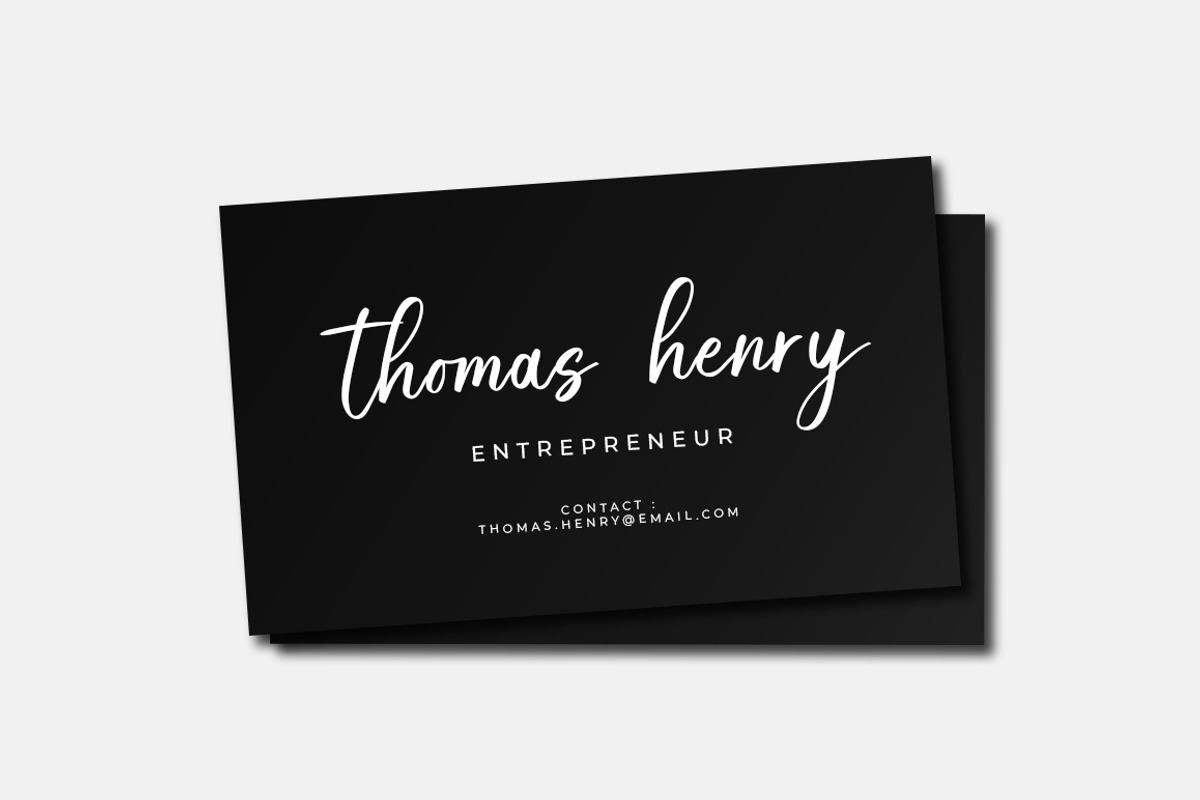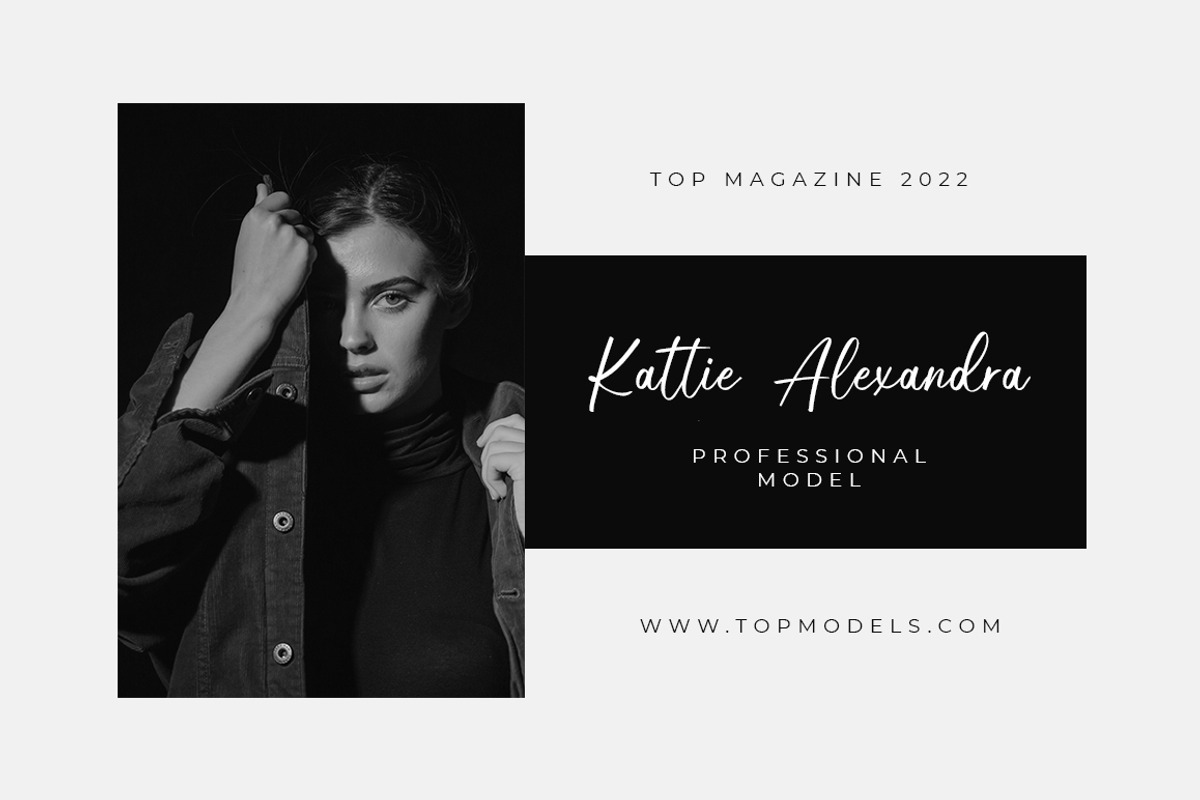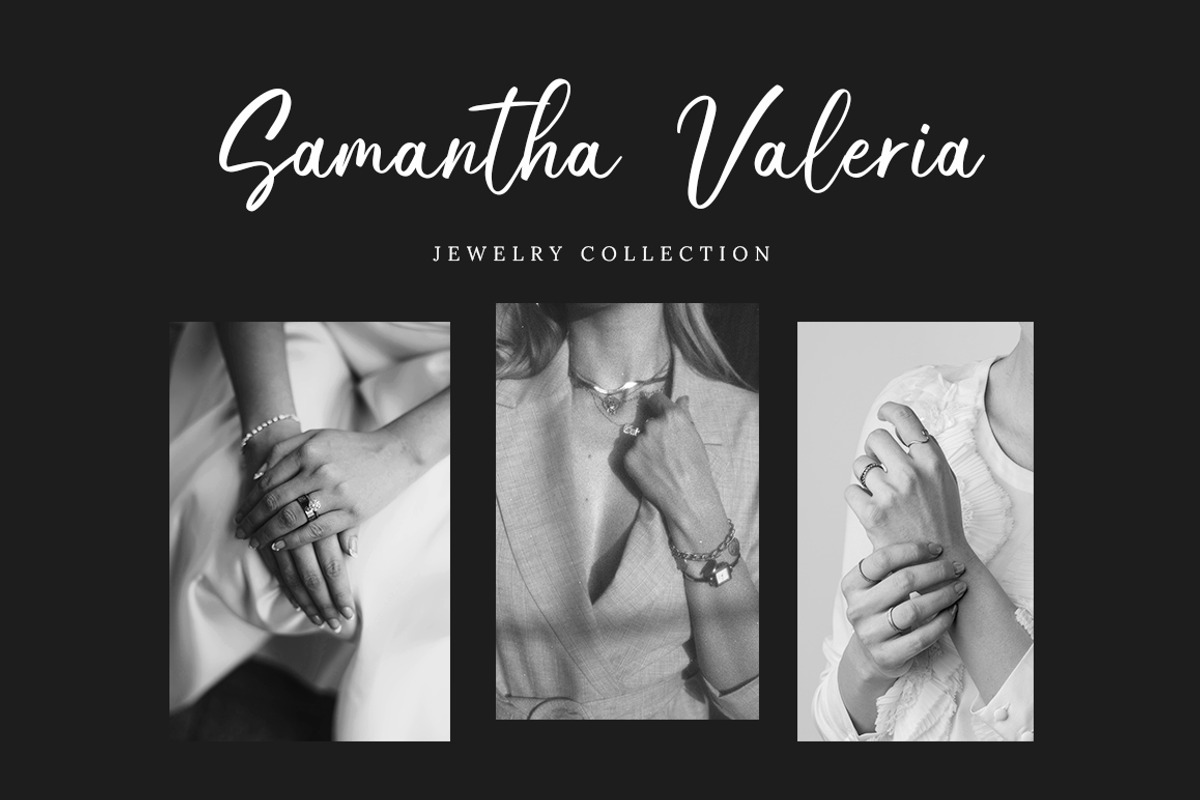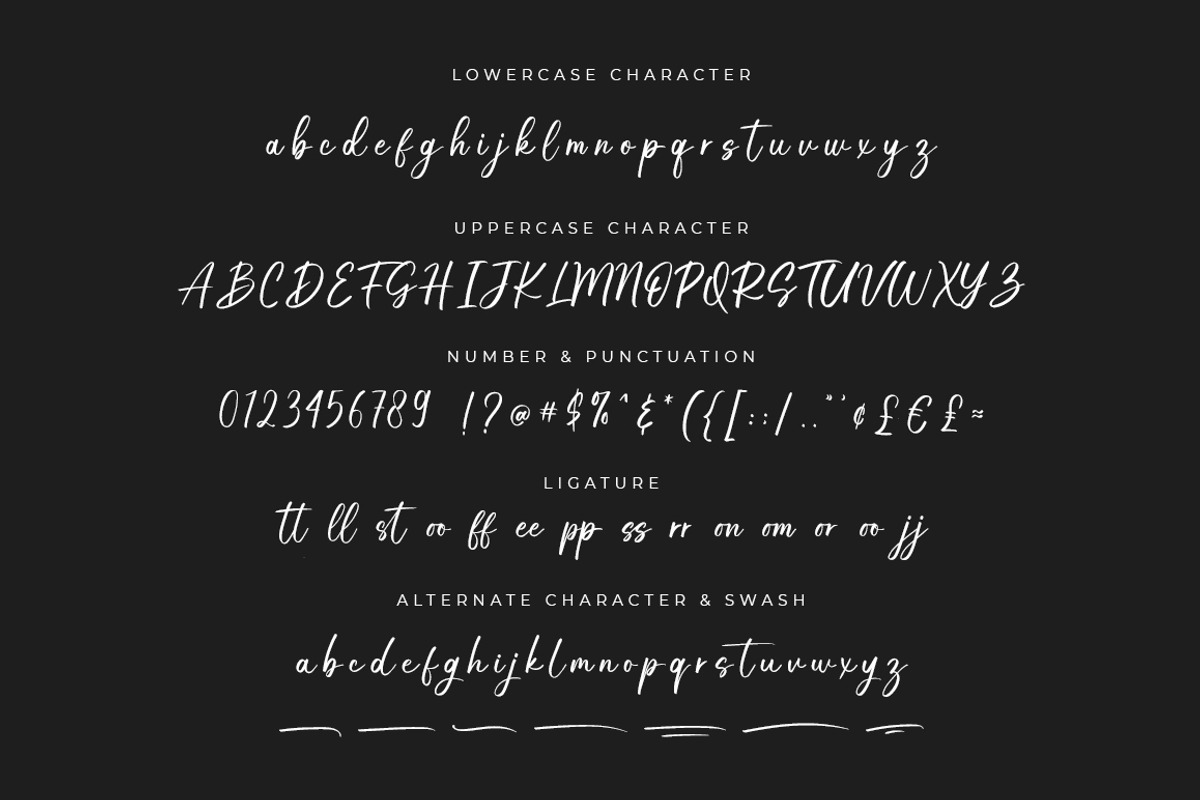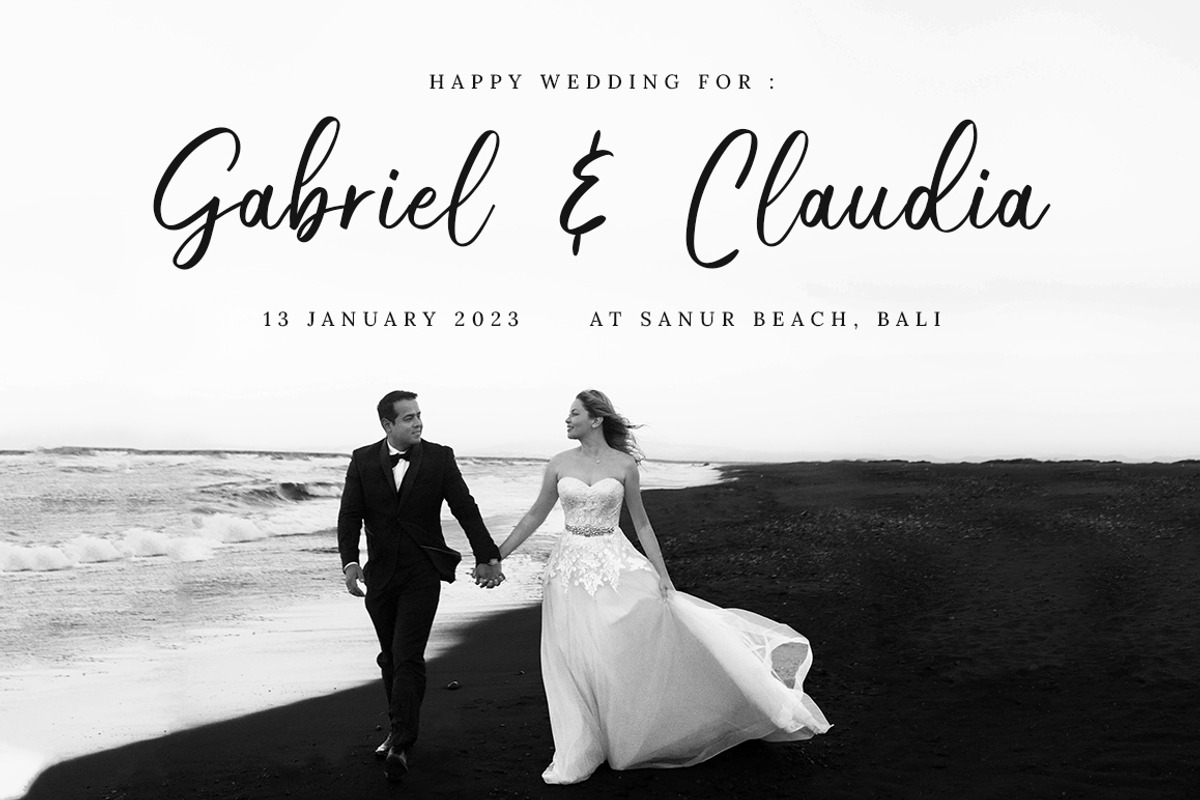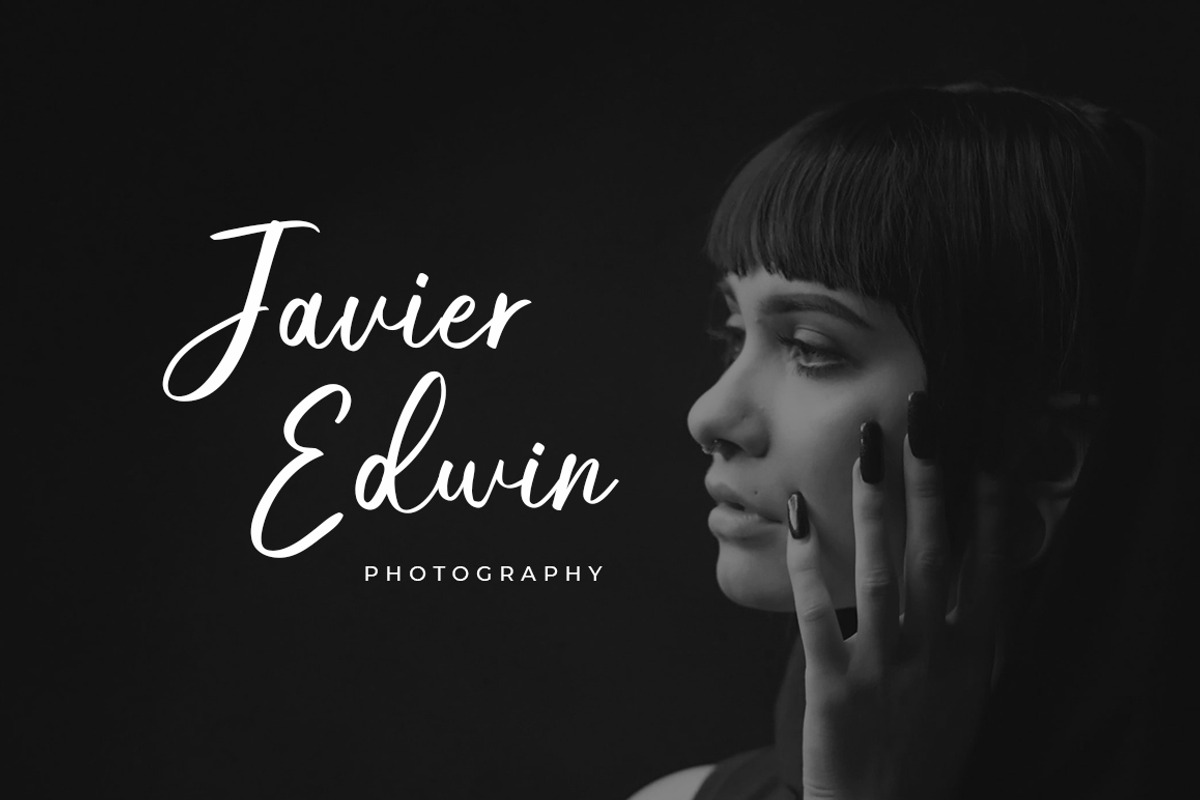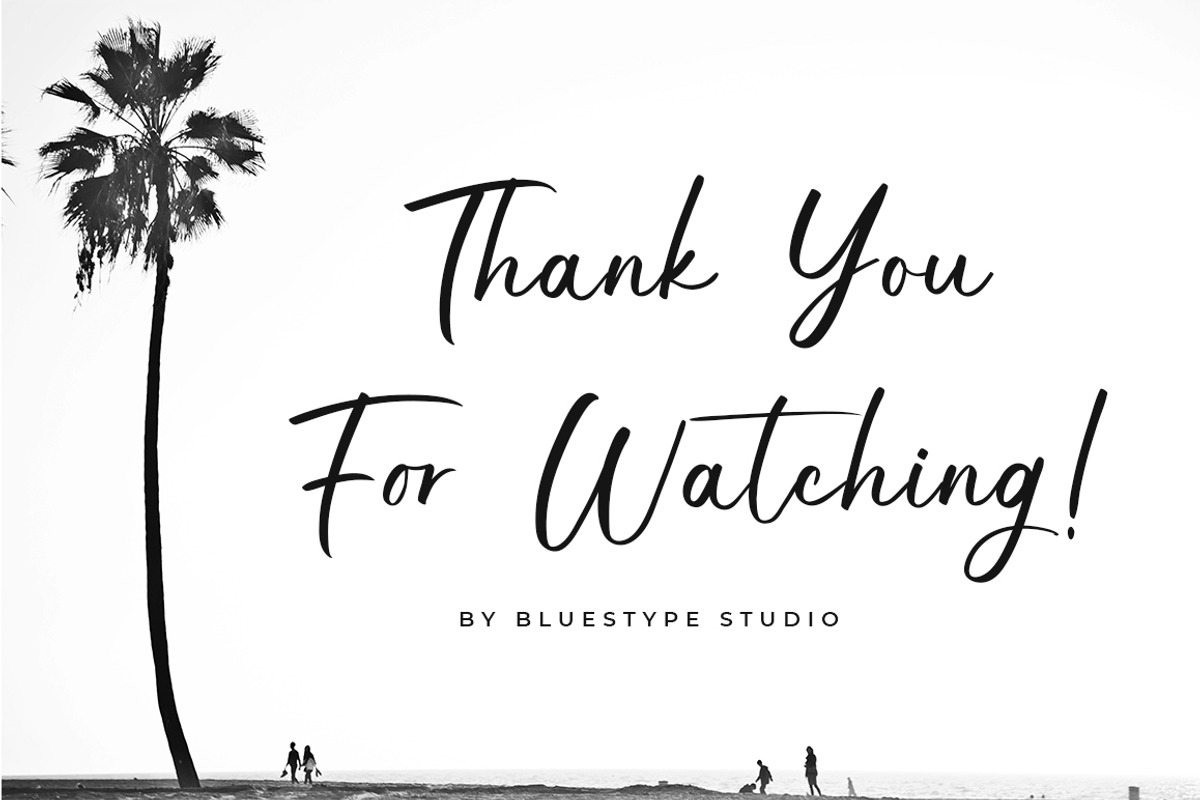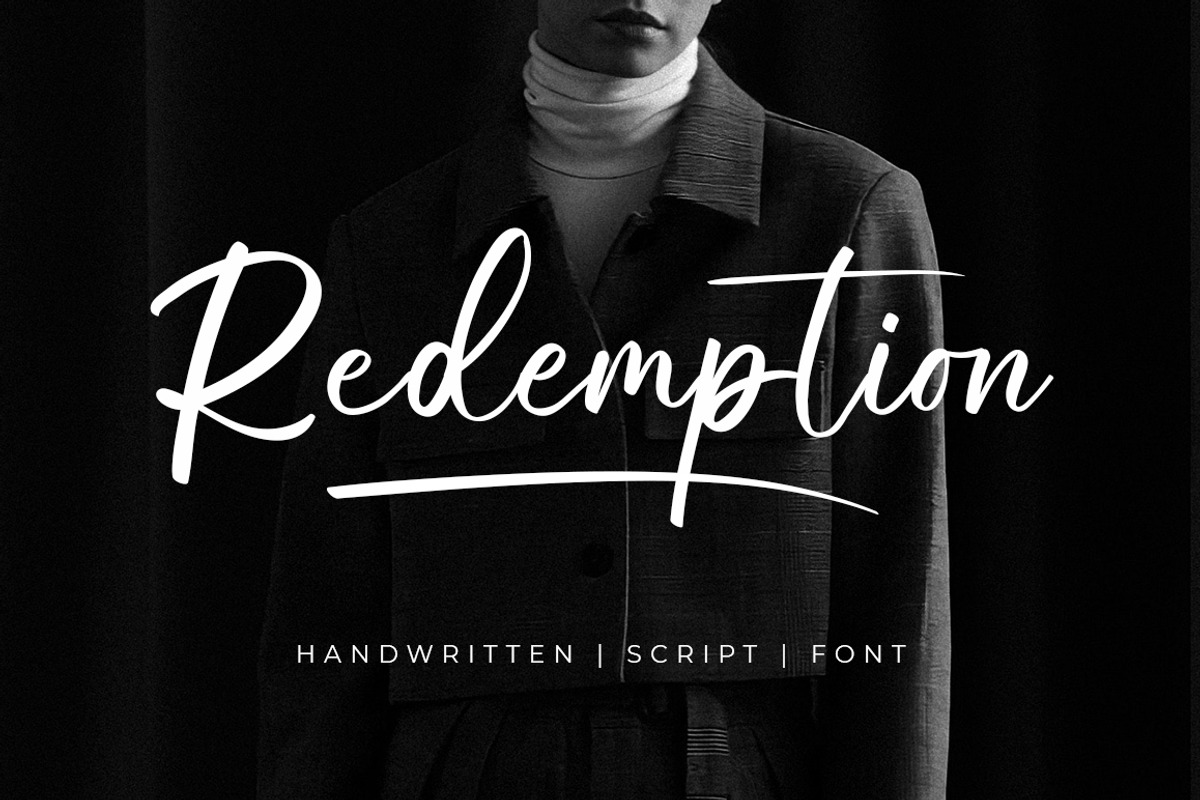
Redemption - Handwritten Script Font
Introducing Redemption - Handwritten Script Font
Redemption is a elegant and casual handwritten font. This stylish font will look gorgeous on a variety of design ideas. It will add a joyful and natural touch to each of your projects!
This font is suitable for use on business branding, fashion, quotes, signature, magazine, logo, social media, photography watermarks, wedding invitations.